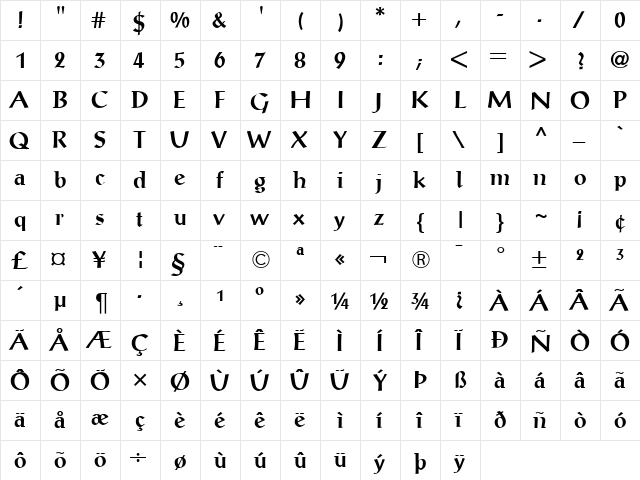
Post Antiqua BE Bold
Design Context for Post Antiqua BE Typeface
Post Antiqua BE takes a measured approach to typography — its balanced proportions and neutral character make it a reliable workhorse for both digital and print work. Its bold stroke weight gives it real presence on the page.